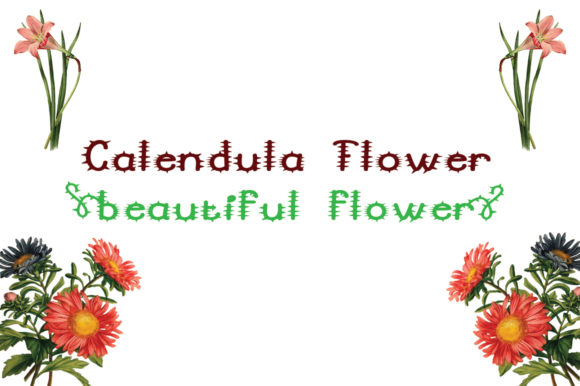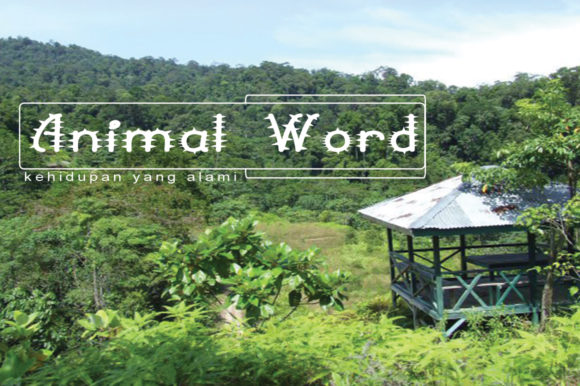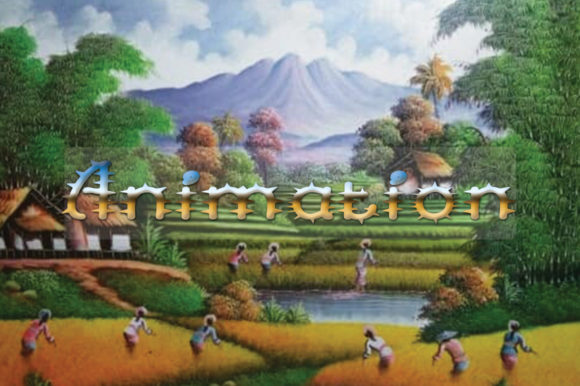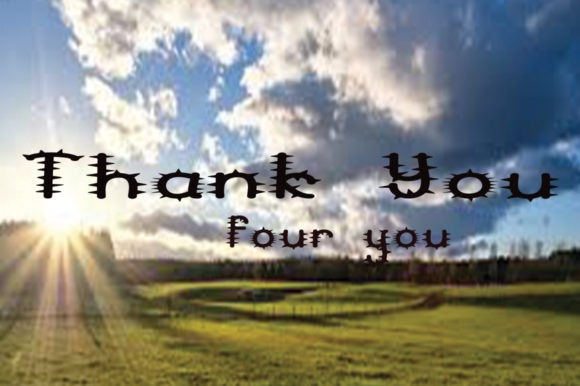
The Prickly yet Perfect Cactus Font: A Designer’s New Best Friend
I’ll never forget the time I was working on a project for a wildlife client, and I needed a font that would capture the essence of the desert landscape. I scoured the internet, tried out countless fonts, but nothing seemed quite right. That was until I stumbled upon the Cactus font. Its thorny and spikey design instantly transported me to the arid wilderness, and I knew I’d found my perfect match.
An Honest Review of Cactus Font
- ✨ Unique and eye-catching design that’s sure to make your project stand out
- ✅ Perfect for nature- or animal-themed designs, such as wildlife logos, desert-inspired branding, or outdoor adventure projects
- 🌟 Highly legible, even at smaller font sizes
- 🎨 Versatile and can be used for both digital and print projects
While Cactus font is an excellent choice for many projects, there are a few things to keep in mind:
- ⚠️ The font’s spikey design can be overwhelming if overused; be mindful of font size and spacing
- 🤔 Some characters, like the lowercase “l” and “t”, can be a bit tricky to read if not used in the right context
The Story Behind Cactus Font
Cactus font was designed by a team of creatives who wanted to capture the essence of the desert landscape in a font. Inspired by the prickly yet beautiful cactus plant, they created a font that’s both bold and elegant. Whether you’re working on a project that needs a touch of the wild west or a bit of desert chic, Cactus font is sure to impress.
| Font Name | Cactus Font |
| Author | designgoe |
Q: What type of projects is Cactus font best suited for?
A: Cactus font is perfect for nature- or animal-themed designs, such as wildlife logos, desert-inspired branding, or outdoor adventure projects.
Q: Is Cactus font available in different weights or styles?
A: Currently, Cactus font is available in a single weight, but it does feature a range of OpenType features, including glyphs and stylistic alternates, to help you add more personality to your text.